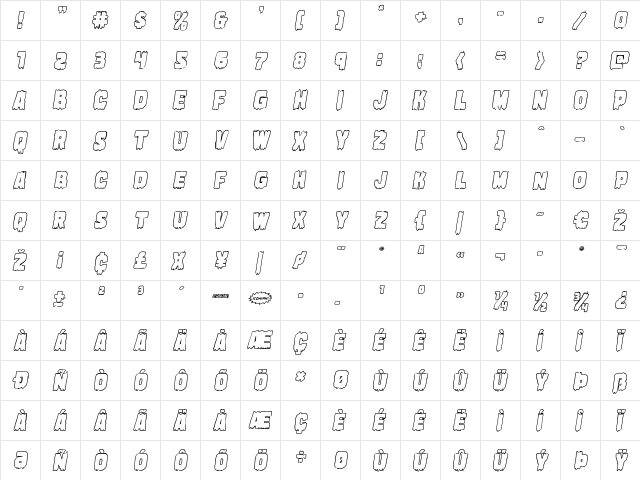
Marsh Thing Outline Italic Italic Font Preview
Design Context for Marsh Thing Outline Italic Typeface
Marsh Thing Outline Italic brings ornamental detail and strong personality to headlines and identities, where visual impact matters more than quiet functionality. Its italic angle brings a sense of urgency and motion to the letterforms. Its slender proportions lend an understated elegance to any composition.
Font Pairing: Pair with a clean neutral sans-serif for body copy to let Marsh Thing Outline Italic's character lead without overwhelming the composition.
Pro Tip: Treat Marsh Thing Outline Italic as the centrepiece of your typographic hierarchy. One strong heading set in a decorative face can carry an entire layout.